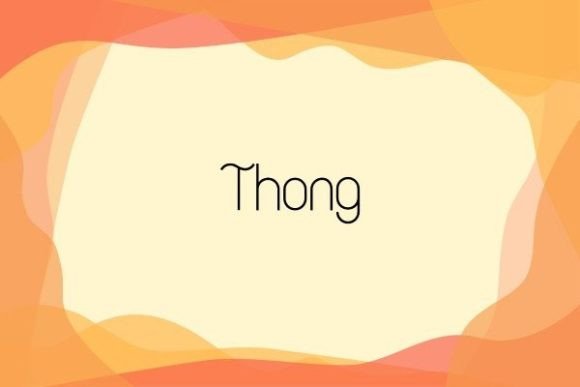
Thong, Funky Display Font for Event Graphics & Posters
Thong is a display font designed to deliver strong visual impact. Its letterforms are crafted to stand out in large‑size uses — perfect for posters, signage, branding, and other eye‑catching designs. As with most fonts from this collection, it is supplied as a digital font file ready to install and use in your design or craft workflow.
This font is well suited to graphic designers, brand creators, print‑on‑demand entrepreneurs, crafters and small business owners who want a bold, memorable typeface for their projects.
- Graphic designers creating logos, branding, posters, flyers, banners, signage
- Crafters using cutting machines (Cricut, Silhouette, etc.) for vinyl, paper crafts, decals, or signage
- Print‑on‑demand or merchandise sellers designing t‑shirts, mugs, posters, stickers — especially where bold typography is needed
- Small businesses or brands needing strong, distinctive typography for packaging, labels, promotional materials, or web headers
- Logos, wordmarks and brand identity visuals with bold typography
- Posters, flyers, banners, signage — ideal for headings and display text
- Merchandise & POD items — t‑shirts, mugs, tote bags, stickers, packaging, labels
- Social‑media or digital graphics — headers, promotions, marketing visuals needing impact
- Cut‑file based crafts — vinyl decals, paper‑cut signs, packaging labels, mockups, signage
- Bold, heavy letterforms that ensure high visibility and impact — ideal for display text and headlines
- Versatile — usable across print, digital, merchandise, craft, and branding projects
- Great as a standalone display font or paired with simpler fonts for balanced layouts
| Feature | Thong | Generic Sans‑Serif Font A | Generic Display Font B |
| Weight / Impact | Heavy, bold, high‑impact | Light to regular — subtle, minimal | Medium — moderate presence, less bold |
| Best For | Headlines, posters, logos, merch, signage | Body text, minimal web/text use, general layouts | Headings or small display, decorative titles |
| Readability at Large Size | Excellent — bold letters stay crisp | Fair — may lose presence in large‑format display | Good — but less bold than Thong |
| Versatility | High for display and design needs | High for general text and broad use | Medium — for limited decorative/display use |